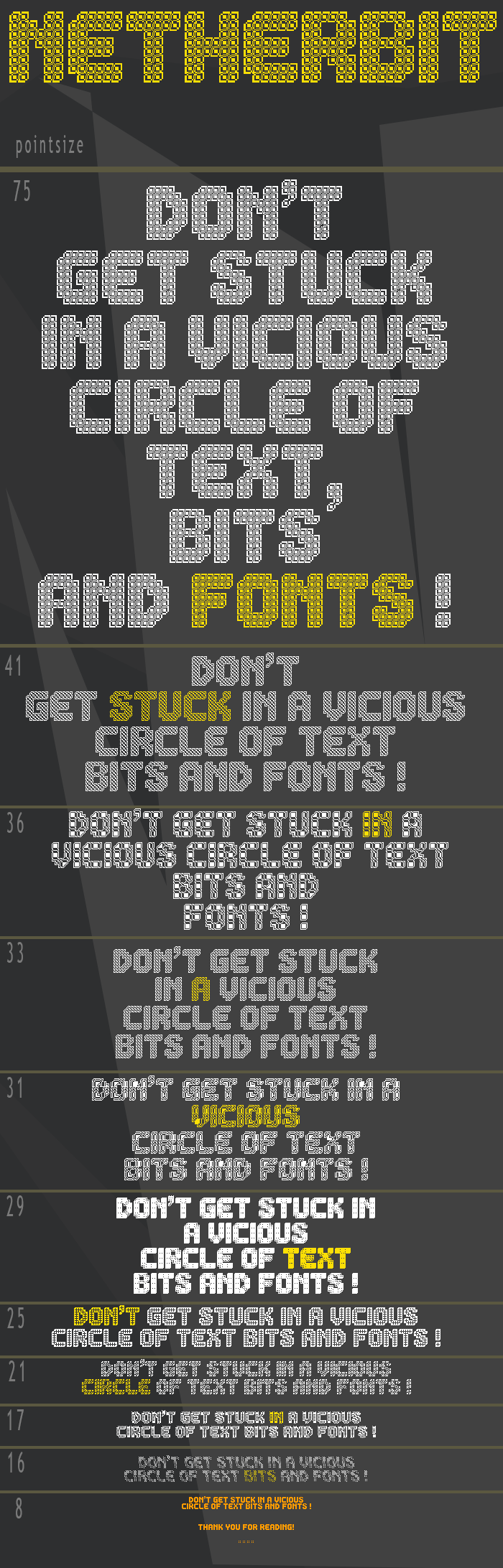
• Argh, I wish I never started this, It was terrible amounts of meticulous work and I wonder if ill ever add the  lowercase letters to this type!!
GRID DIMENSIONS:
172 x 74 units
FILTERS:
0.5 x 0.5 grid scale  (and still no full glyph fits on screen)
Damn, I notice its quite staggering how many cool looking patterned varriations I get, just from changing the font size !
See the sample image for more detail.